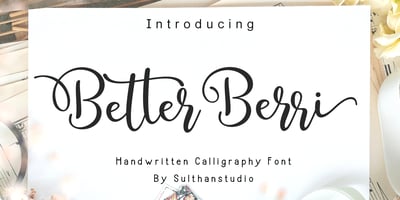
Better berri Font Family was designed by Nasrullah and published by Sulthan Studio. Better berri contains 1 styles and family package options. This elegant hand made font is simply amazing, beautiful with so many options alternative, swashes and also ligatures making it easy for you to create what you like.total 546 glyphthank you for visiting : )